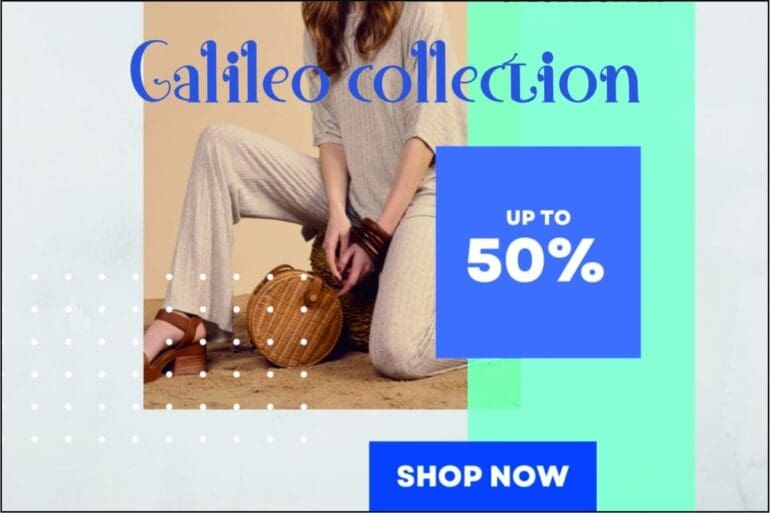
Gateway Font
Gateway is an elegant and alternatife serif font with a touch of minimalist and modern style. It is suitable for logotype, headline font, in corporate identity, brand identity, apparel industry, poster, music, movie, game, magazine, book, comic, cartoon, YouTube, Instagram, website, or any of your creative design projects.